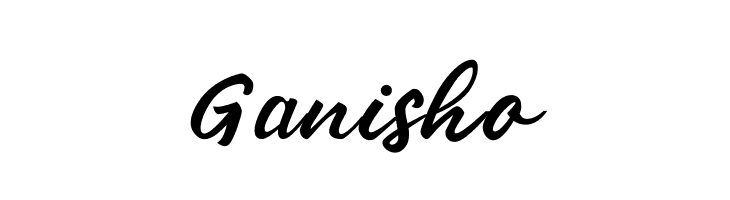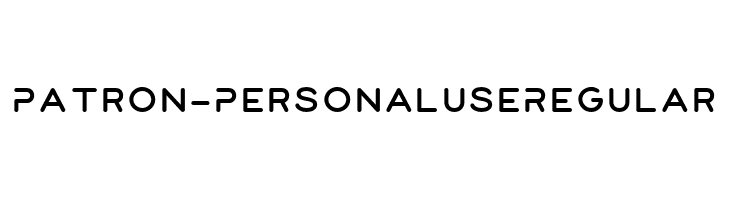
A playful, bold handwritten font with smooth, rounded edges and consistent stroke width.
A cursive, calligraphic font with elegant, flowing lines and a bold presence.
A modern, geometric font with a futuristic and technical style.
A modern, geometric sans-serif font with rounded edges and uniform stroke width.
A bold, cursive font with elegant, flowing strokes.
A bold, oblique font with a modern, dynamic style and tight character spacing.
A bold, geometric font with a 3D striped effect, ideal for impactful headlines.
A bold, textured, hand-drawn style font ideal for creative projects.
A cursive, elegant script font with a flowing, handwritten style.